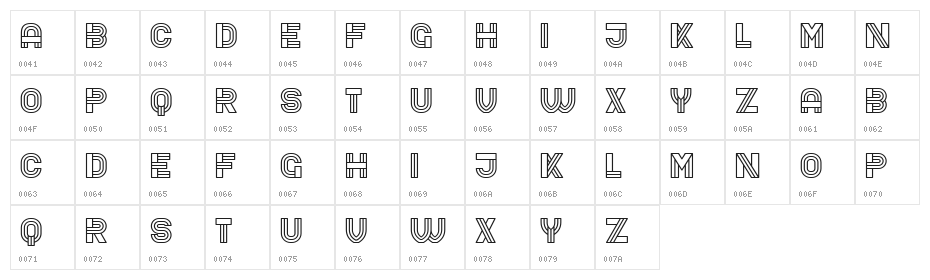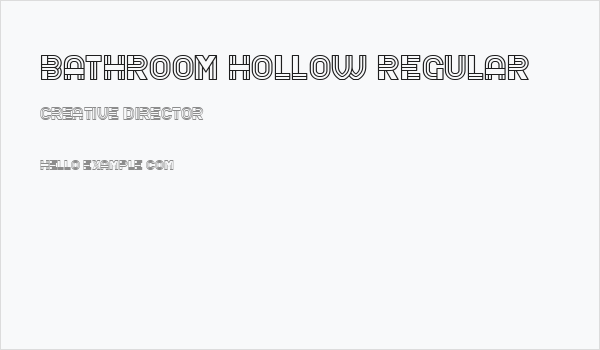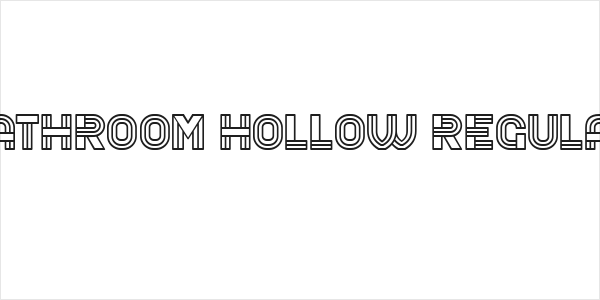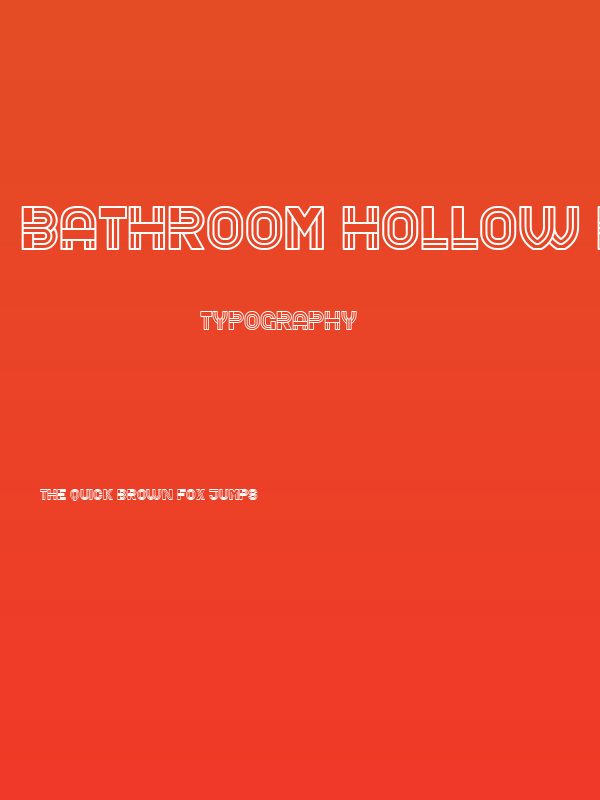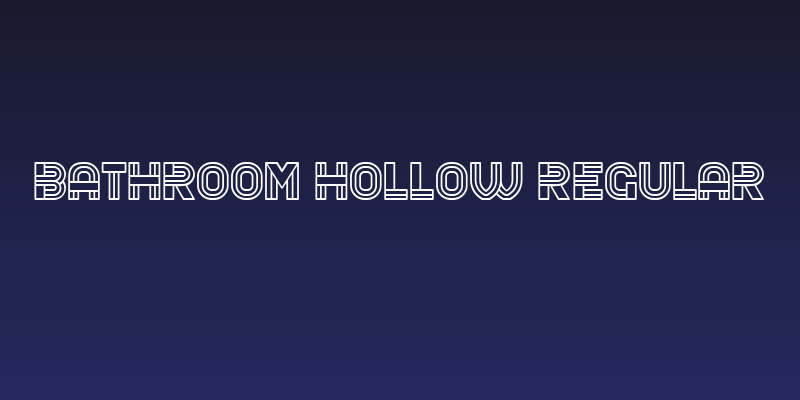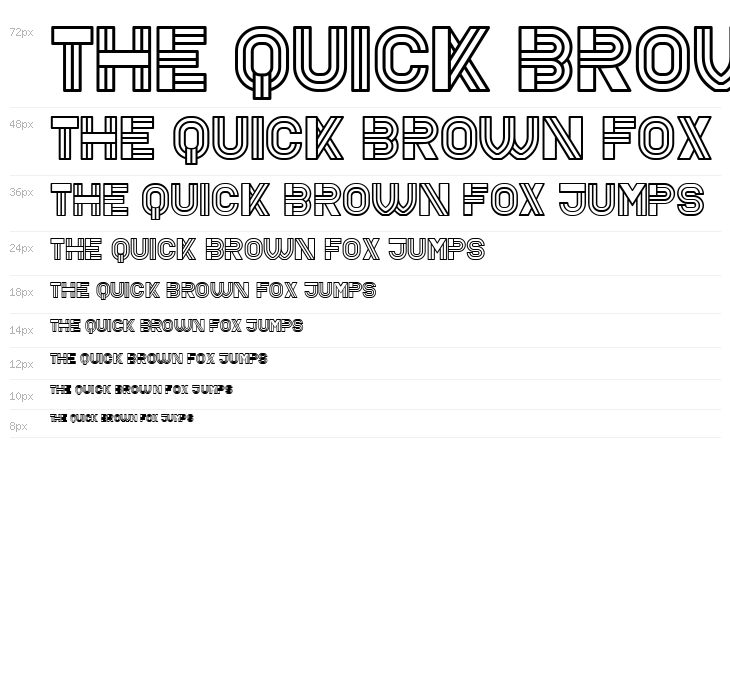
Bathroom Hollow Regular Font
Bathroom Hollow Regular Description
This font features a unique hollow design with a geometric, linear style. Each character is constructed with multiple parallel lines, creating a striking visual effect. The uppercase letters are bold and structured, with a consistent width throughout. The design is modern and eye-catching, making it suitable for creative and artistic projects. Its hollow nature gives it a sense of openness and lightness, while the geometric shapes add a contemporary touch. The font's distinct appearance makes it ideal for headlines, posters, and branding materials where a bold statement is needed.
| Proposed Projects | Ideal for use in posters, headlines, branding, and artistic projects requiring a bold statement. |